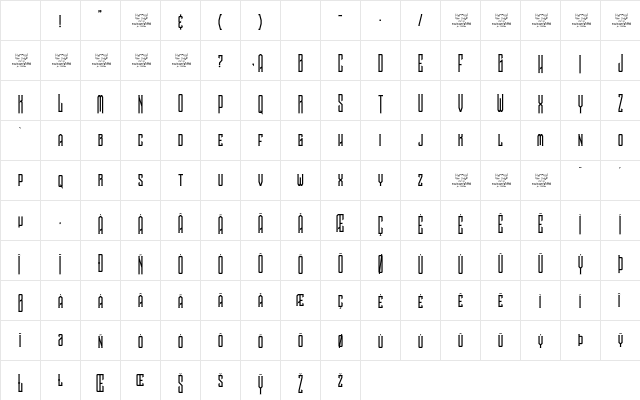
Complete Noggovoso Personal Use Regular glyph index. Displaying only characters natively supported by Noggovoso Personal Use Regular font.
Noggovoso Personal Use is a composed and adaptable typeface that performs quietly and consistently across a wide range of design contexts.